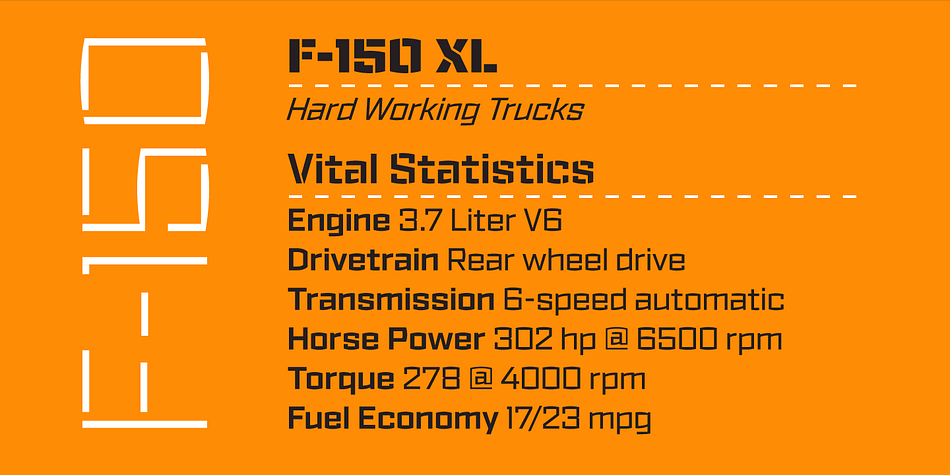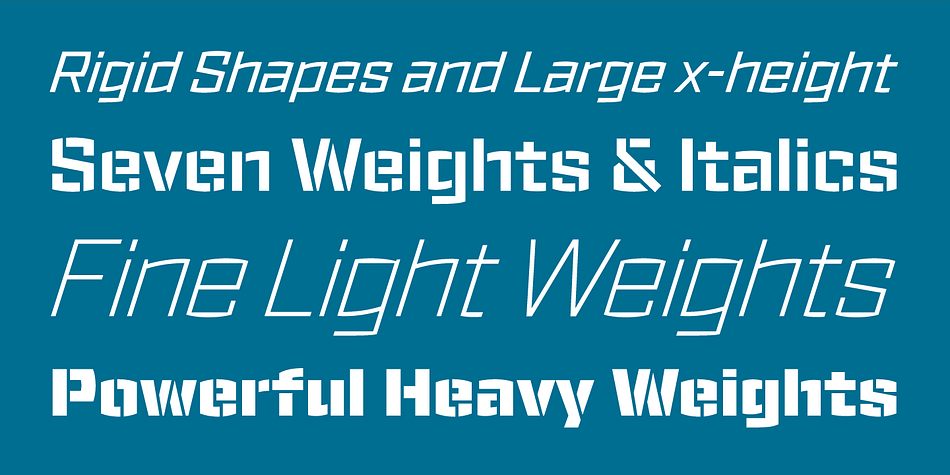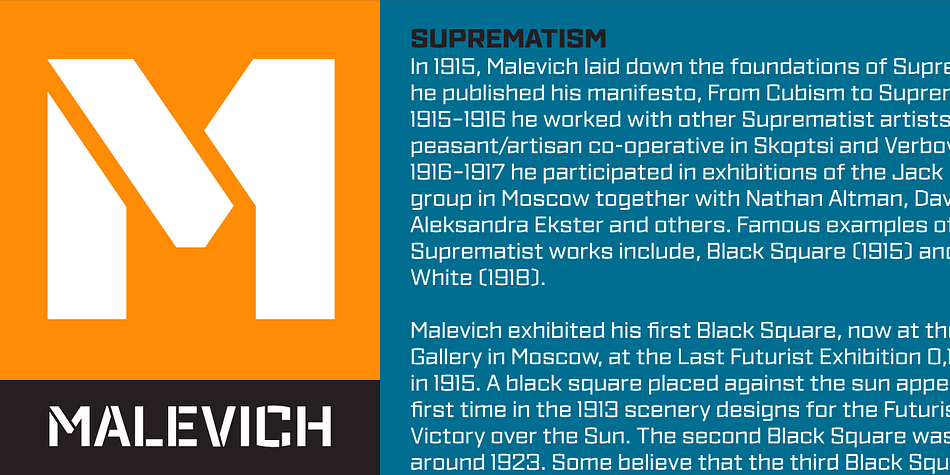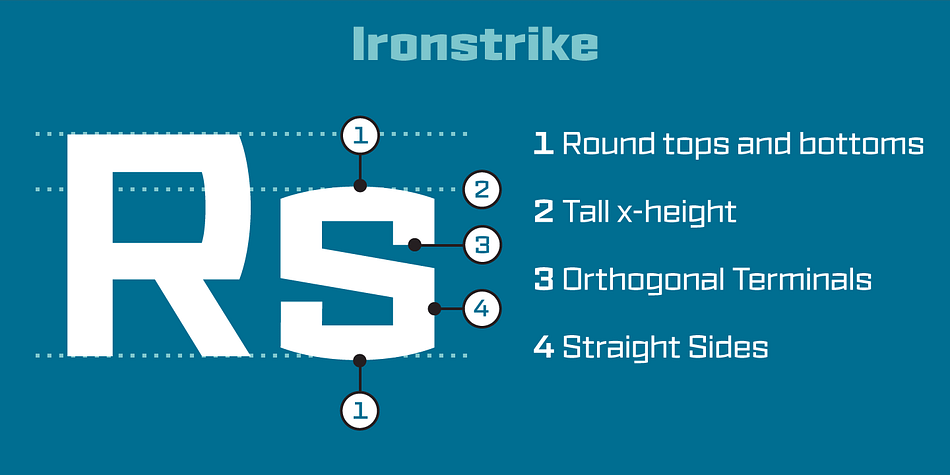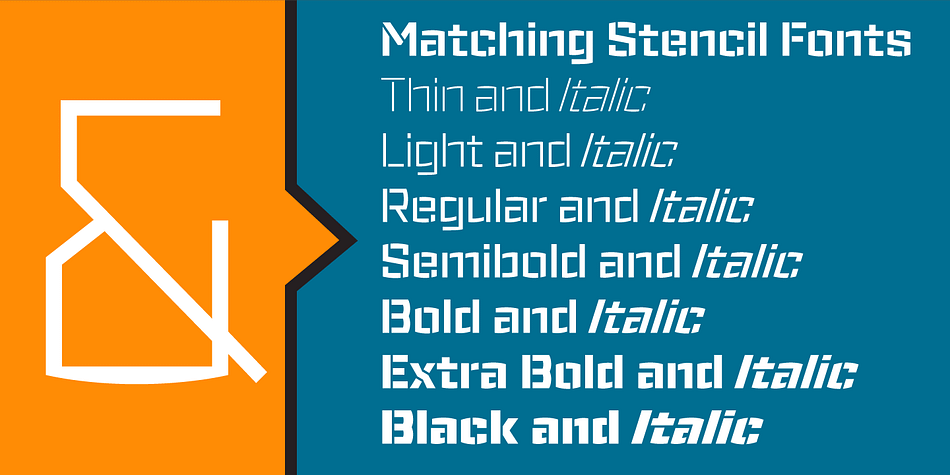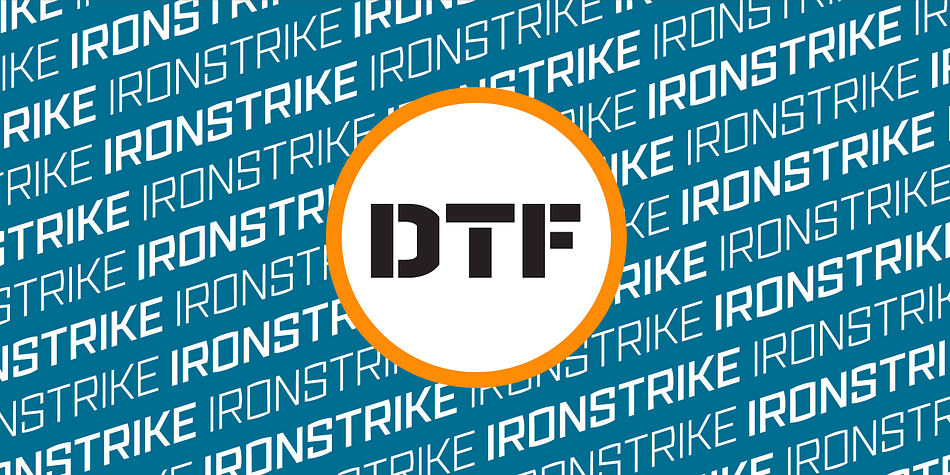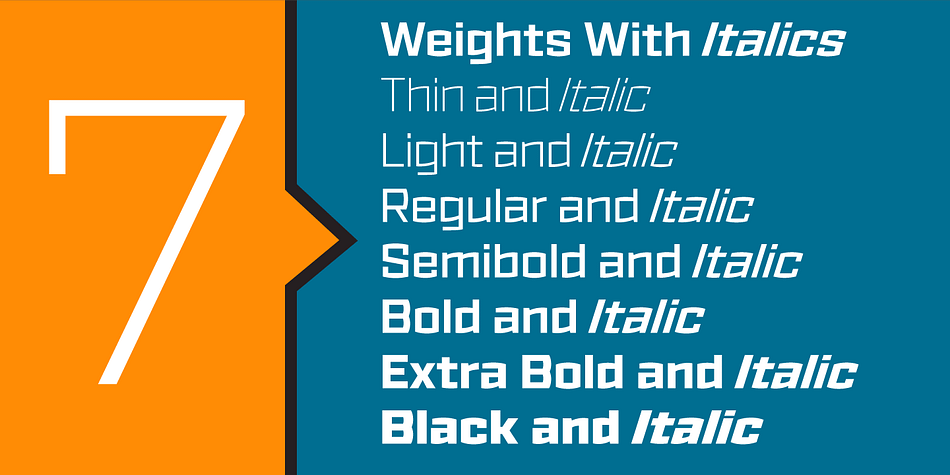
Ironstrike is a sans serif and stencil font family. This typeface has twenty-eight styles and was published by Dunwich Type Founders.
Ironstrike pays homage to industrial and constructivist lettering. Rigid shapes and tall lowercase letters evoke strength and technology. Seven weights with matching italic fonts step up to your tough design challenges. Fine light weights emphasize white space and powerful heavy weights pump up extreme headlines. An intense 17.5° italic slant makes words scream across the page. OpenType tablular figures and arbitrary fractions tackle numbers. Fourteen stencil fonts provide a full range of matching display fonts. And support for over 130 languages lets you address readers around the world. Make Ironstrike your tactical tool for commanding attention.